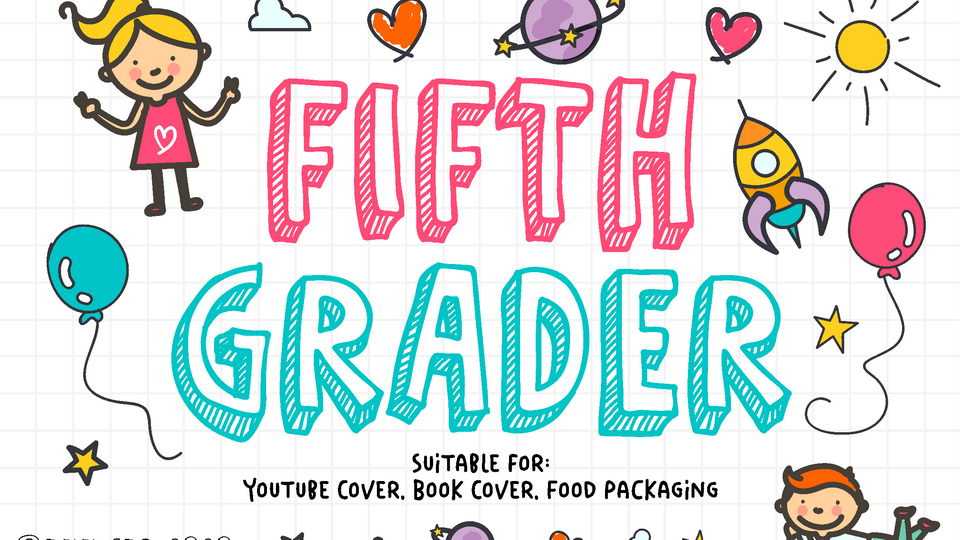
Download Fith Grader font, a handwritten typeface emphasize that level of smartness of a children in every word it’s written. Suit perfectly for Online Games, poster, movie title, fast food menu, magazine, youtube covers, youtube thumbnails, social media page covers and so on…